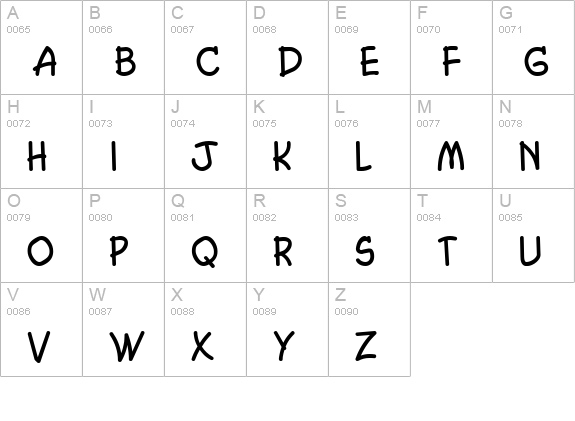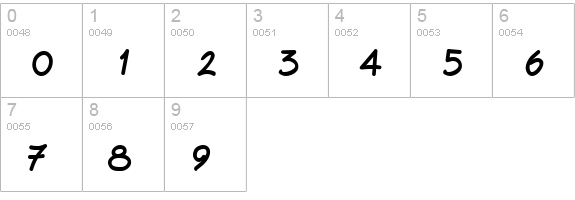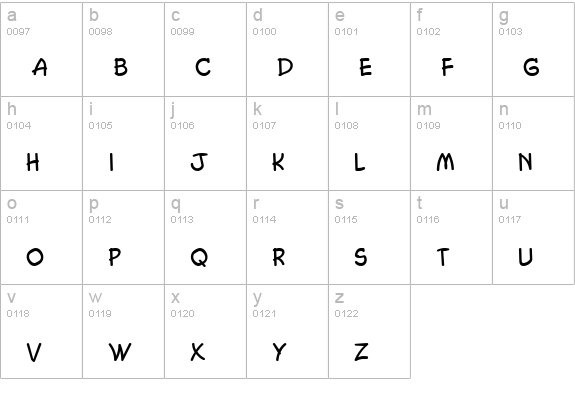
Chasm Normal is the standard, neutral variant in the Chasm typeface family \xE2\x80\x94 well suited to general body text, paragraphs, and standard typographic work.
Chasm Normal font is a versatile and modern typeface that exudes elegance and sophistication. With its clean lines and balanced proportions, Chasm Normal is perfect for a wide range of design projects. Whether you're creating a sleek corporate identity, designing a stylish website, or crafting eye-catching marketing materials, this font will elevate your work to the next level. What's even better is that Chasm Normal font is completely free to download at FontsMarket.com. With just a few clicks, you can add this beautiful font to your collection and start using it in your projects right away. Don't miss out on this amazing opportunity to enhance your designs with Chasm Normal font - download it for free today!